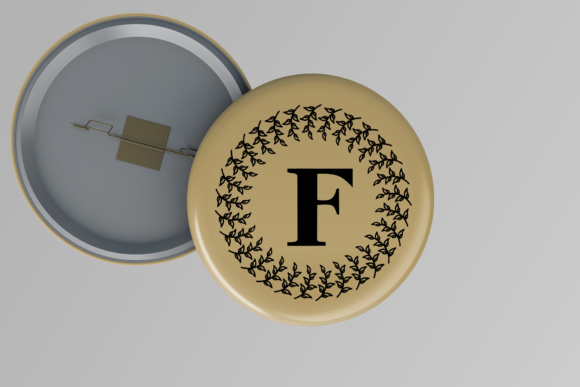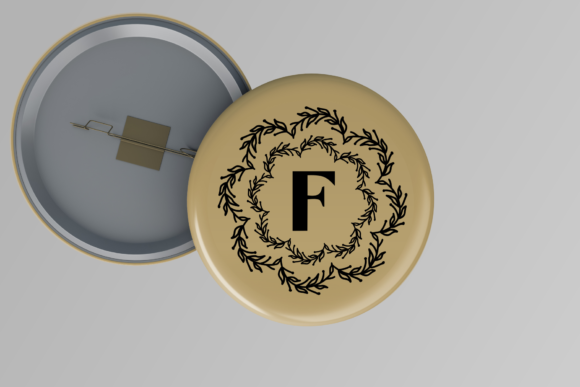
Three Lovely Monograms Font
Three Lovely Monograms Font is a free, unique, and cool font. This font is FREE to Download and suitable for designs such as t-shirts, sportswear, posters, logos, advertisements, clothing, and more.
Three Lovely Monograms Font is a free, unique, and cool font. This font is FREE to Download and suitable for designs such as t-shirts, sportswear, posters, logos, advertisements, clothing, and more. Whatever the topic, this font will be a great asset to your font collection, as it has the potential to enhance any creation.